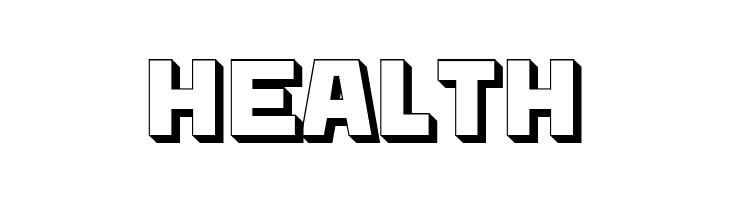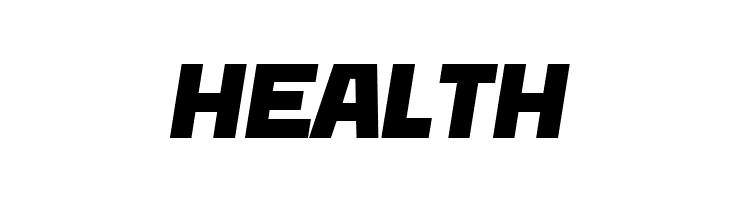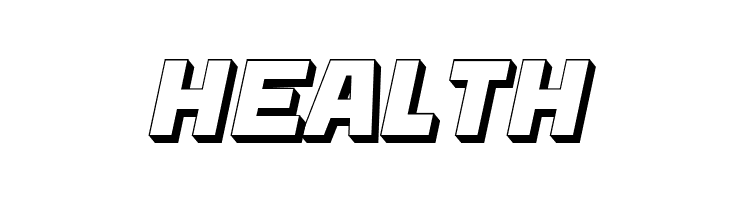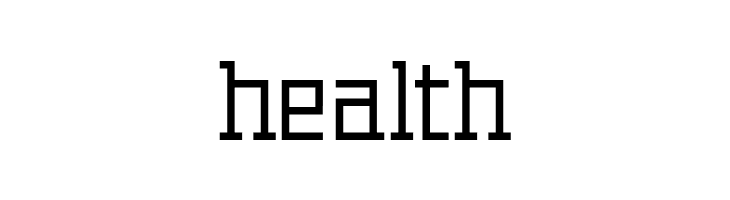
A playful, handwritten font with a casual and dynamic style.
A geometric, monospaced font with consistent stroke widths and a modern design.
A graceful, cursive handwritten font with a modern calligraphic style.
A modern, playful font with geometric and organic elements.
A bold, 3D italic font with a futuristic and dynamic style.
A bold, 3D font with shadow effects for a striking, modern look.
A bold, italicized font with a modern, angular design.
A bold, geometric font with a modern, condensed style.